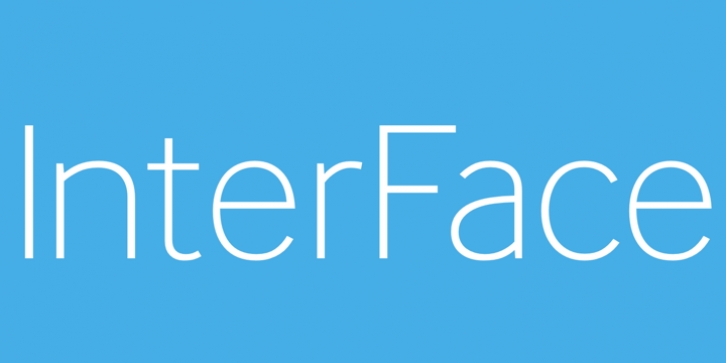
InterFace Typographic downloadDesigner: Bruno Maag
Publisher: Dalton Maag
The design of InterFace is influenced by the sans serif fonts of the late 19th Century. While many of the features are Grotesque, a softer look is achieved by blending in some humanist features, such as how the curved strokes meet the straight stems. The fractionally raised x-height allows for a slightly narrower design to increase the letter count where space is at a premium. InterFace’s highly individual design features on some characters support a unique look, which helps a brand or identity stand out from the crowd. This Font is the official typeface of the UK’s famous Southeastern Rail service. It is used in all of their marketing, signs & logo.
The Standard Edition includes a complete Latin A Extended character set. Please see the Corporate Edition of the font for an extended character set with Greek and Cyrillic scripts.